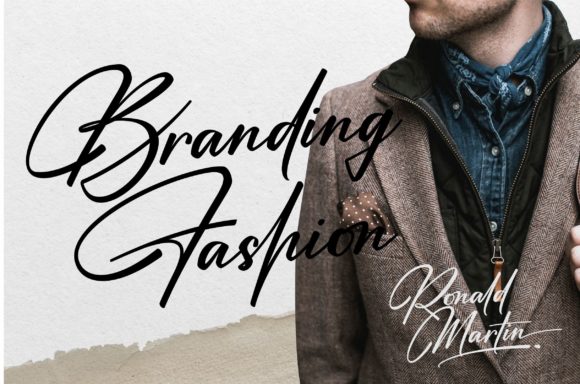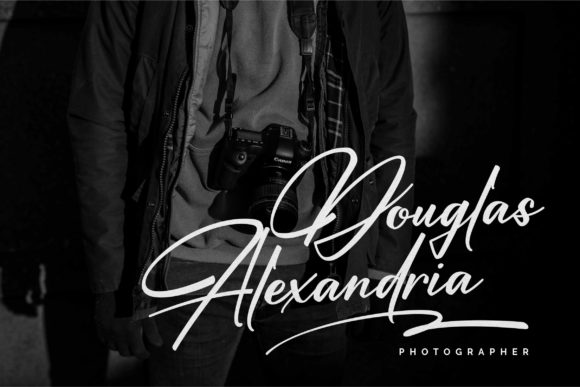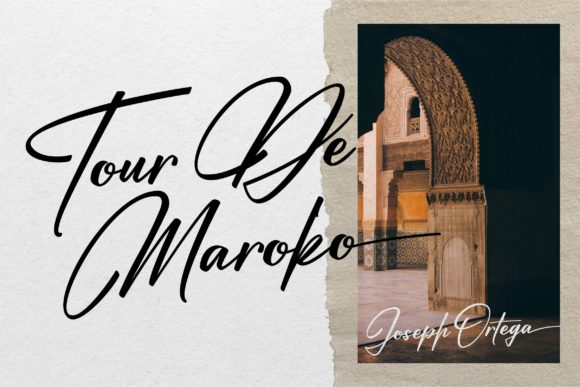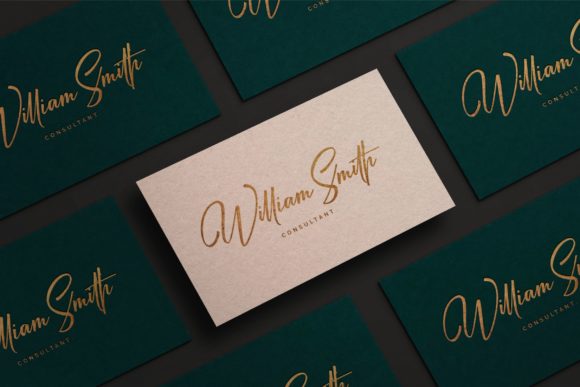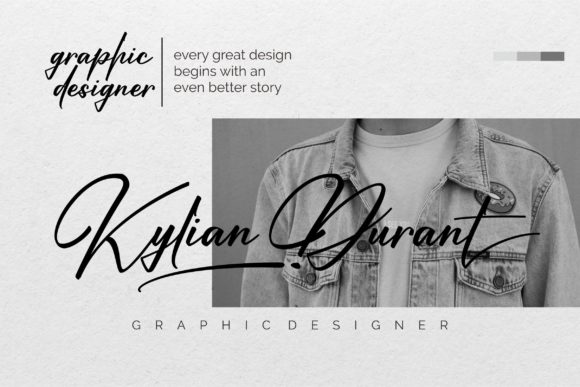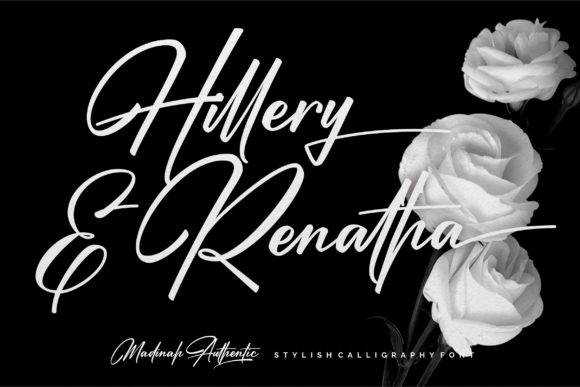
Introduction to Madinah Authentic Font Font
Fonts play a crucial role in design, and the Madinah Authentic Font font is a typeface that brings both character and versatility to any project. Whether you’re working on a branding project, a website, or a print design, the Madinah Authentic Font font offers a unique style that can elevate your work.
Madinah Authentic is a chic, refined script font that emanates sophistication and elegance.
Its stylish alternates and ligatures make this font the perfect match for any project Madinah Authentic is PUA encoded which means you can access all of the glyphs and swashes with ease.
Key Features of Madinah Authentic Font Font
Why Choose Madinah Authentic Font Font?
The Madinah Authentic Font font is more than just a typeface – it’s a design tool that helps you communicate your message with style and clarity. Its unique character set and versatile design make it suitable for a wide range of applications, from elegant invitations to bold headlines.
With its carefully crafted letterforms and balanced proportions, the Madinah Authentic Font font ensures readability and visual appeal across all mediums.
What makes Madinah Authentic Font font special?
The Madinah Authentic Font font stands out with its unique design, exceptional readability, and versatility across various design applications.